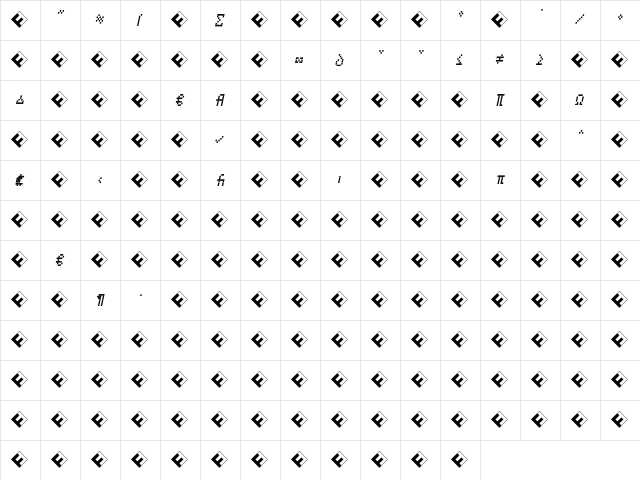
CallFourS-ItalicExp Regular Font Preview
CallFourS-ItalicExp Regular
Design Context for CallFourS-ItalicExp Typeface
CallFourS-ItalicExp takes a measured approach to typography — its balanced proportions and neutral character make it a reliable workhorse for both digital and print work. The slanted form adds forward momentum and visual energy.
Pro Tip: Try CallFourS-ItalicExp for annotation and caption copy alongside an upright companion — the contrast in angle creates a dynamic but ordered typographic system.